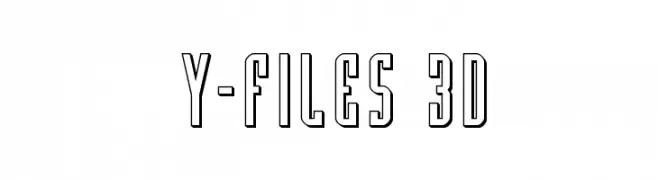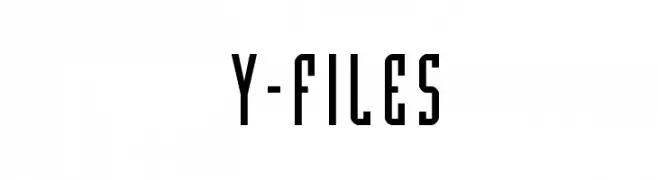
A bold, condensed font with a modern, industrial style.
A bold, geometric font with a futuristic and angular design.
A tall, narrow, and modern geometric font with consistent stroke width.
A bold, 3D geometric font with a modern, futuristic style.
A bold, italicized 3D font with sharp, angular lines and a modern, dynamic appearance.
A bold, condensed font with tall, narrow characters for a strong visual impact.
Bold, italicized font with strong, slanted letterforms for a dynamic look.
A bold, three-dimensional font with horizontal stripes and a vintage-modern aesthetic.
A bold, italicized 3D font with a chrome-like, retro-futuristic style.
A modern, condensed font with tall, narrow letters and a sleek appearance.